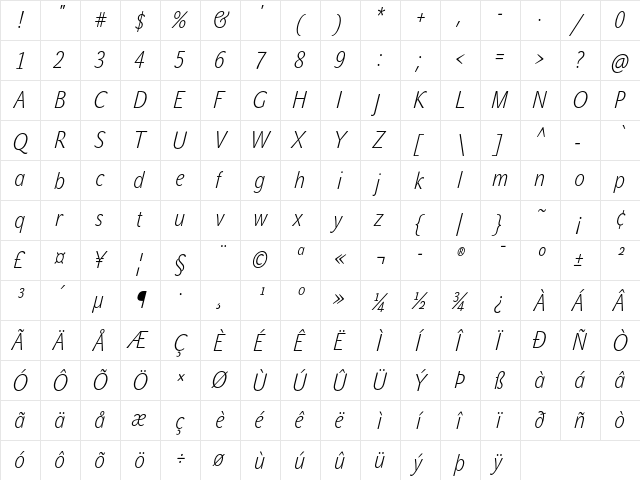
JohnSansCond White Pro Italic Font Preview
JohnSansCond White Pro Italic
JohnSansCond White Pro Italic Font Details
| Designer | Frantisek Storm |
Design Context for JohnSansCond White Pro Typeface
JohnSansCond White Pro is a composed and adaptable typeface that performs quietly and consistently across a wide range of design contexts. The slanted form adds forward momentum and visual energy. Its narrow stance lets it pack a punch even in space-constrained designs.
Pro Tip: Use JohnSansCond White Pro for emphasis, pull quotes, and subheadings where its slanted energy can add rhythm to the layout.